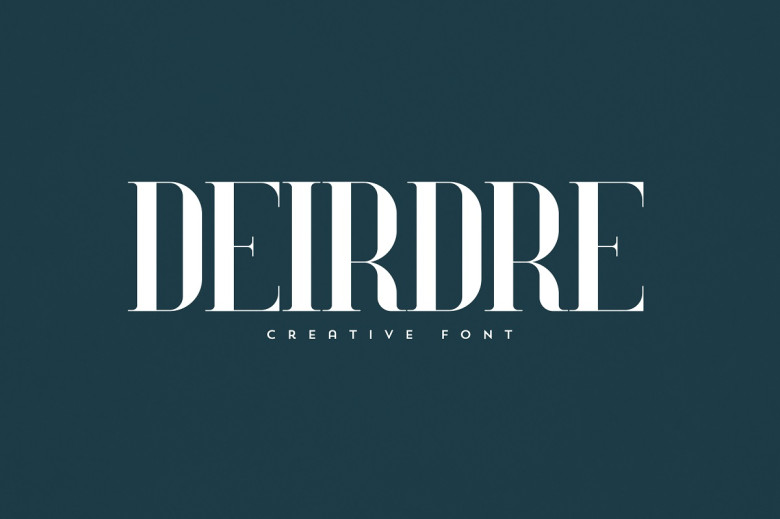
Deirdre Font
Deirdre will add an elegant flair to any logo, headline or plain text – perfect for branding projects, packaging designs, homewares or magazine headers or as stylish text over any background image! This font can also make great logotypes!
Deirdre Display Font